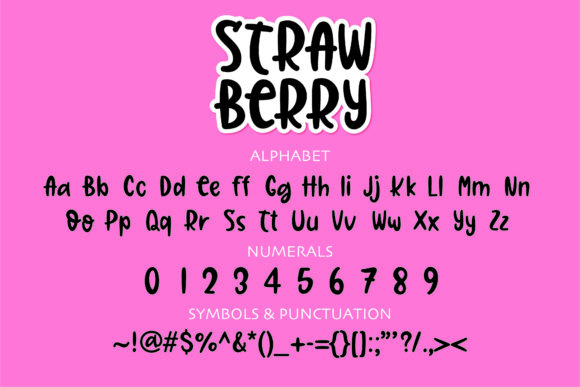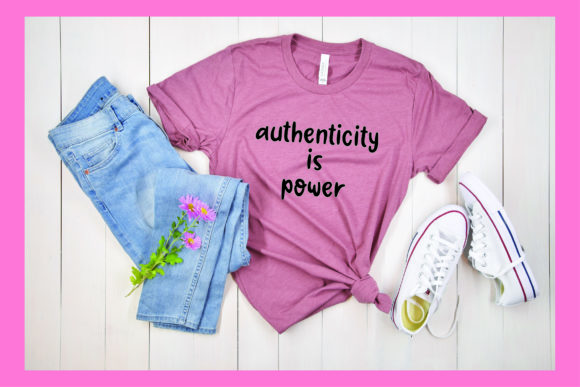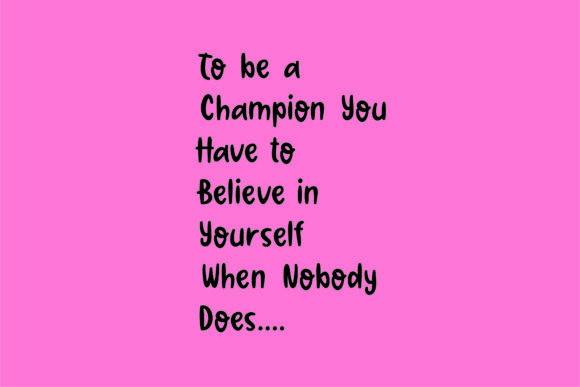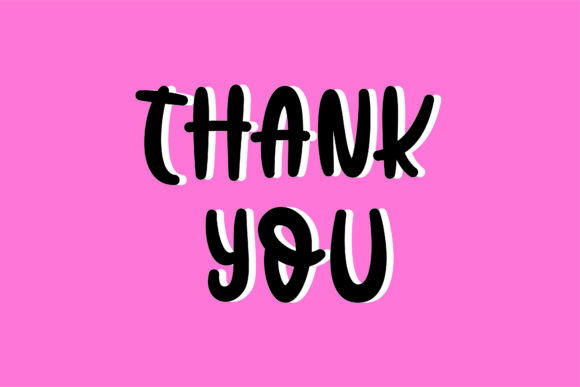
Strawberry Font
About Strawberry Font
Strawberry is a lovely handwritten font. Get creative with its fun, charming style and add it to each of your inspired ideas!